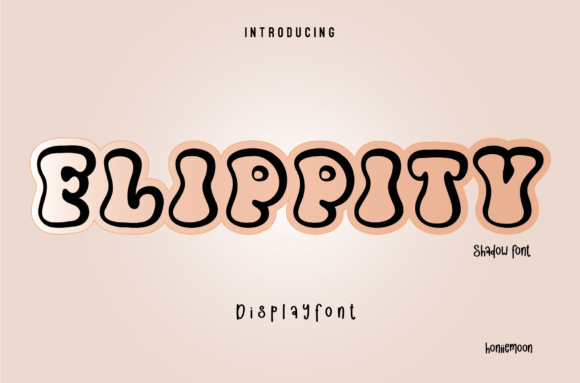
Prepare yourself to be captivated by Flippity Font, a remarkable display font that exudes both charm and playfulness. Its unique and lively appearance has the power to transform your designs into captivating works of art. Allow your imagination to soar as you harness the boundless creativity of this font.
With Flippity Font, you'll embark on a delightful journey through a world where colors dance and letters leap off the page. Its vibrant and bold persona will ignite your creative spirit, inviting you to explore new horizons of visual expression. Whether you're designing stunning logos, eye-catching posters, or playful social media graphics, Flippity Font will elevate your designs to new heights.
Step into a realm of endless possibilities, where Flippity Font becomes your trusted companion in the realm of design. Let its cheerful and friendly demeanor bring a smile to your face as you watch your creations come to life. Unleash your inner artist and allow Flippity Font to guide you towards design excellence.
Don't miss out on the opportunity to embrace the magic of Flippity Font. Its vibrant and cheerful nature will infuse your designs with a touch of whimsy and delight. Experience the joy of creating designs that resonate with your audience and leave a lasting impression.